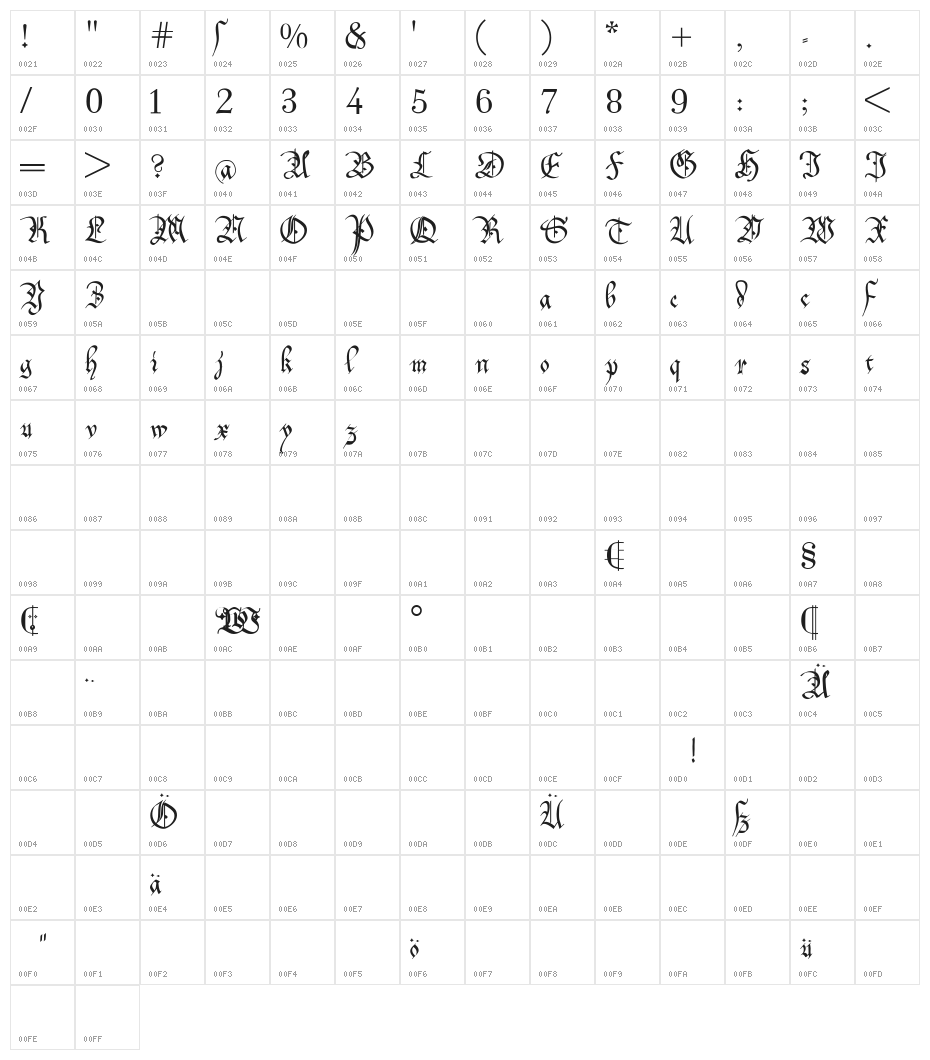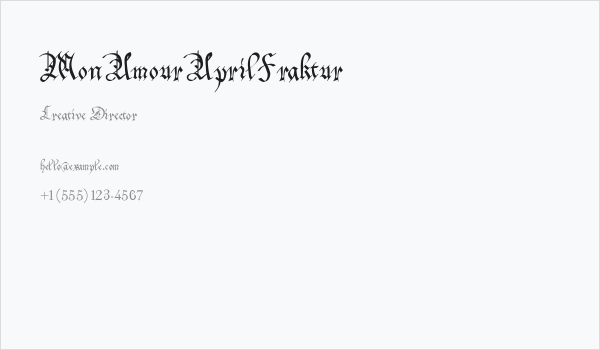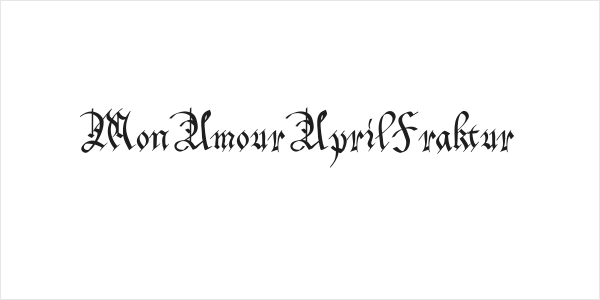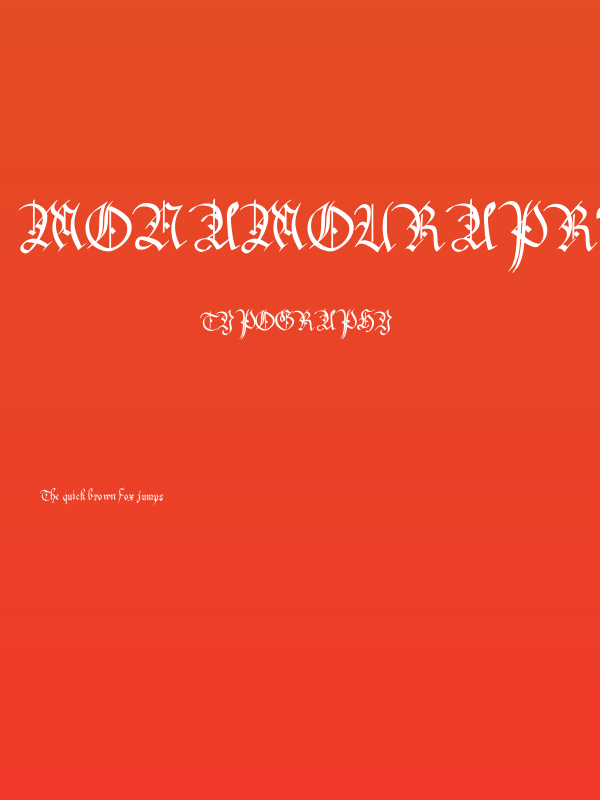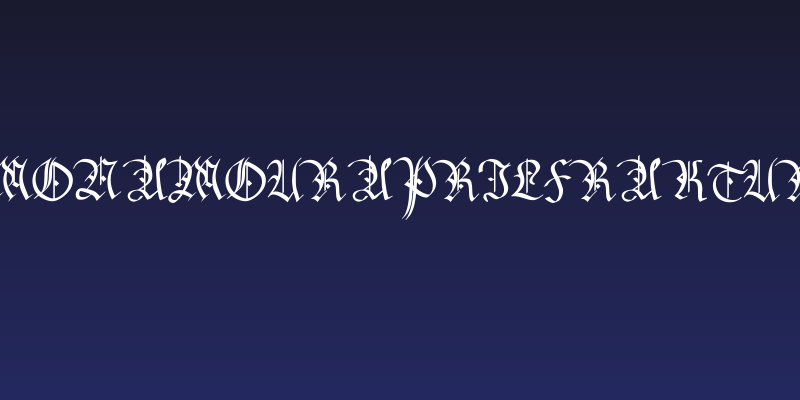
MonAmourAprilFraktur Font
MonAmourAprilFraktur Description
This font features a classic blackletter style with intricate and ornate details, reminiscent of medieval script. The uppercase letters are highly decorative, with sharp angles and flourishes that give them a dramatic appearance. The lowercase letters maintain the same level of detail, with a slightly more condensed form that enhances readability. Numbers are bold and clear, while special characters retain the elaborate style of the alphabet. This font is perfect for projects that require a historical or gothic aesthetic, offering a sense of elegance and tradition.
| Proposed Projects | Ideal for historical documents, gothic-themed designs, book covers, and event invitations. |